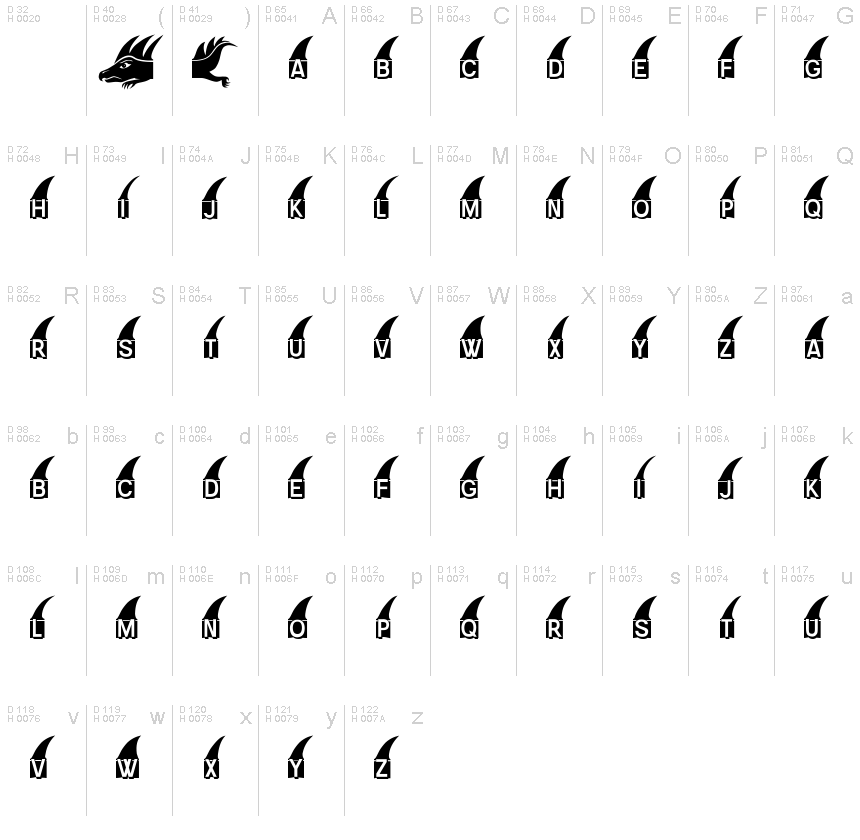
Hedgehog Regular
"Hedgehog" is a captivating display font that exudes a sense of whimsical playfulness. Its distinct, decorative design featuring sharp, angular shapes evokes the image of its namesake - a hedgehog. The bold, expanded letterforms command attention, making this font an impactful choice for headlines, titles, and branding applications.
Designed by Vladimir Nikolic, "Hedgehog" possesses a strong, confident personality that would thrive in a variety of design contexts, from children's illustrations to modern, edgy compositions. Its unique visual character lends itself particularly well to attention-grabbing designs that aim to stand out and capture the viewer's imagination. Whether used for a book cover, poster, or digital interface, this font has the potential to elevate any project with its distinctive, decorative flair.